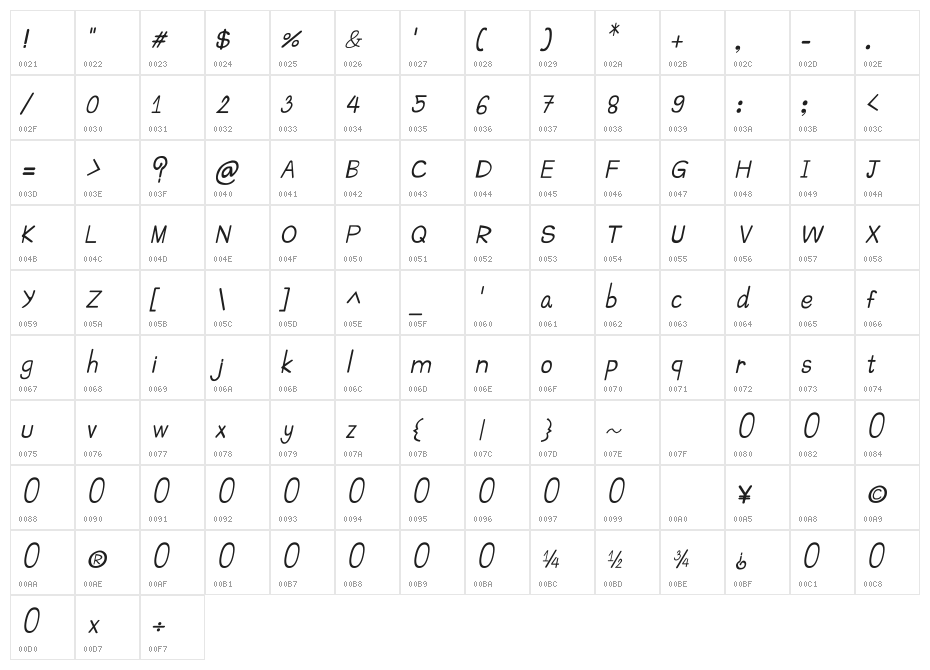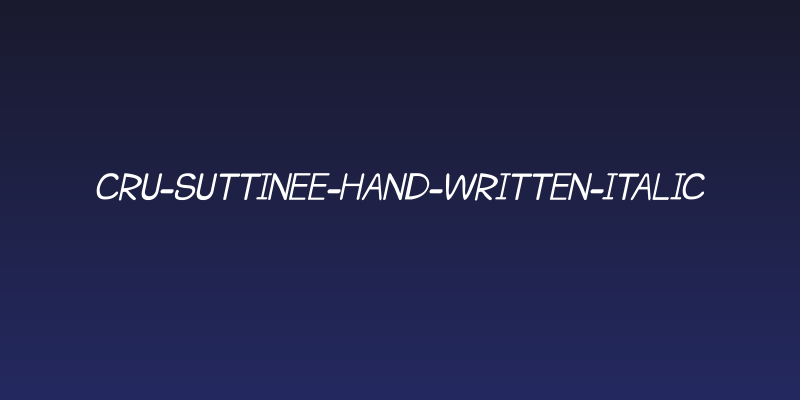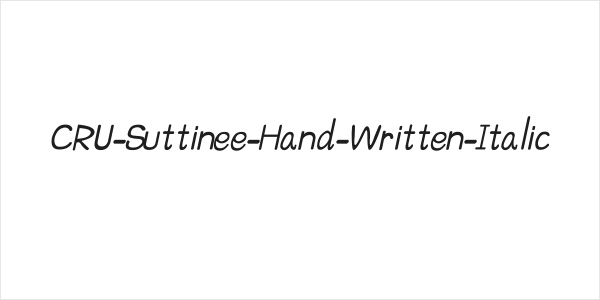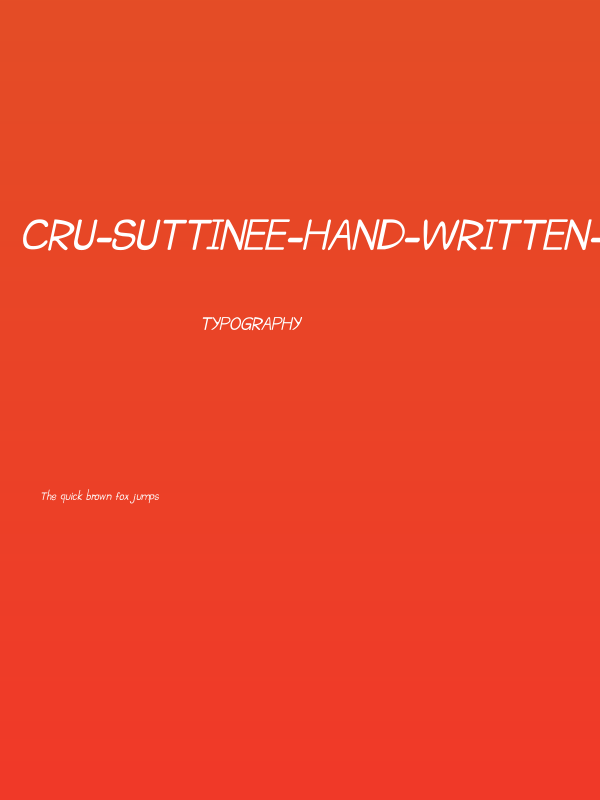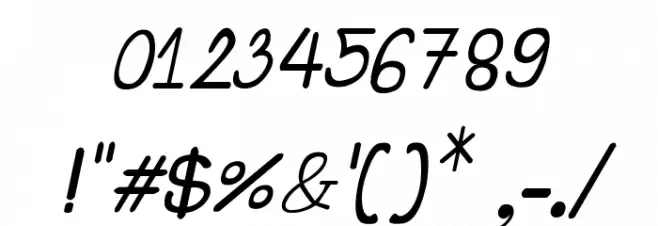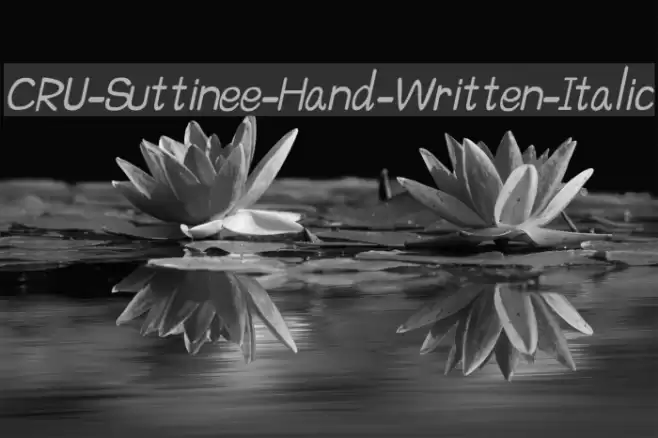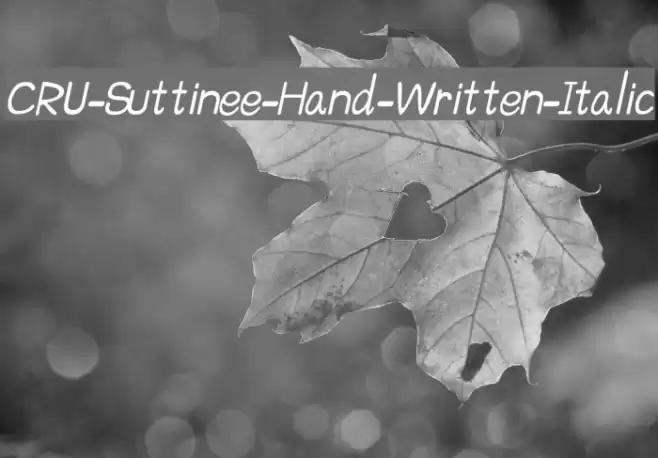
CRU-Suttinee-Hand-Written-Italic Font
CRU-Suttinee-Hand-Written-Italic Description
This font features a charming handwritten style with a noticeable italic slant, giving it a dynamic and personal touch. The characters are crafted with smooth, flowing strokes that mimic natural handwriting, making it ideal for projects that require a personal or informal feel. The uppercase letters are slightly larger and more pronounced, while the lowercase letters maintain a consistent and harmonious flow. The numerals and special characters are designed to match the overall style, ensuring a cohesive look across all text. This font's unique style makes it suitable for creative projects, invitations, and personal branding.
| Proposed Projects | Ideal for invitations, greeting cards, personal branding, and creative projects. |